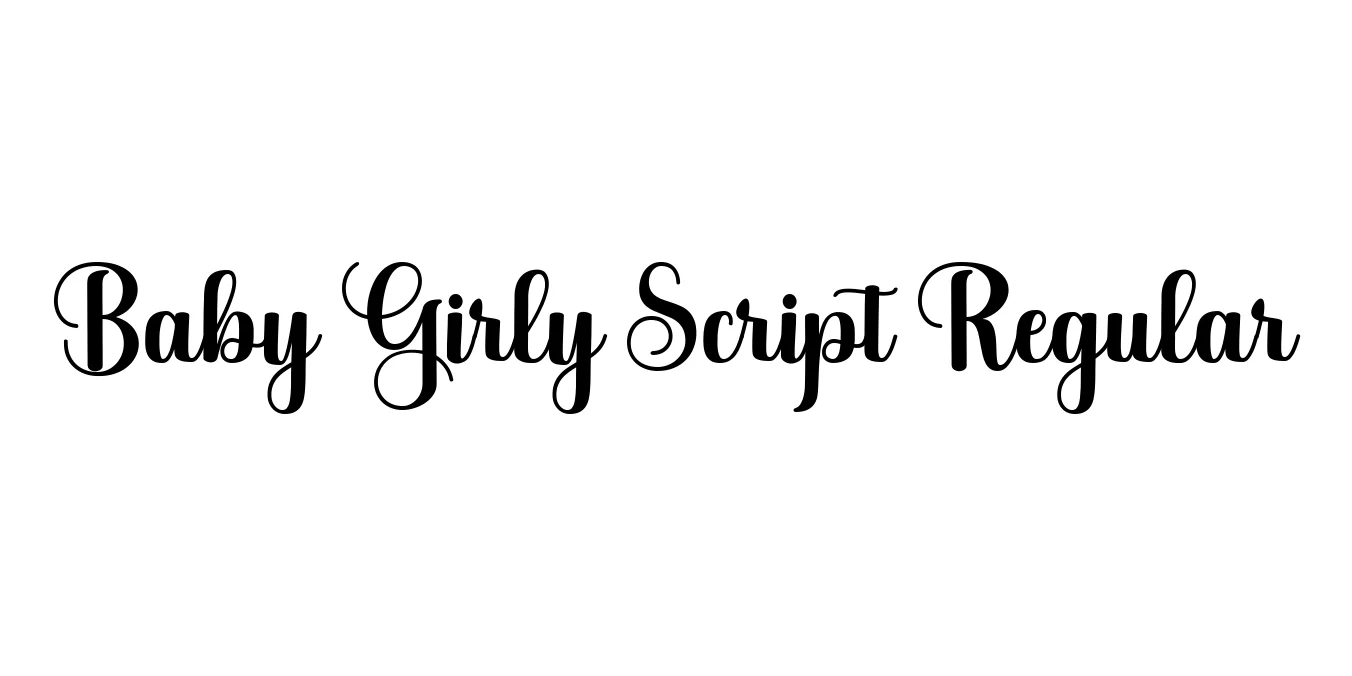
Baby Girly Script Regular
Designed by Vultype Co
Baby Girly Script Regular is a charming and whimsical calligraphic typeface designed to evoke feelings of sweetness and playfulness. It features elegant, flowing strokes with subtle bounces, making it ideal for feminine branding projects, nursery decor, and creative stationery that requires a soft, handmade touch.
This font includes a variety of OpenType features such as swashes and decorative alternates, allowing designers to create unique, hand-drawn looks effortlessly. Whether used for digital designs or high-quality print media, Baby Girly Script maintains a high level of legibility while providing an artistic, decorative flourish to any creative project.
Baby Girly Script Regular Best Uses
Perfect for adding a personal, romantic touch to bridal stationery.
Ideal for creating engaging Instagram quotes and Pinterest graphics.
Excellent for logos in the beauty, fashion, or lifestyle sectors.
Adds a heartfelt, hand-lettered feel to personal messages and crafts.